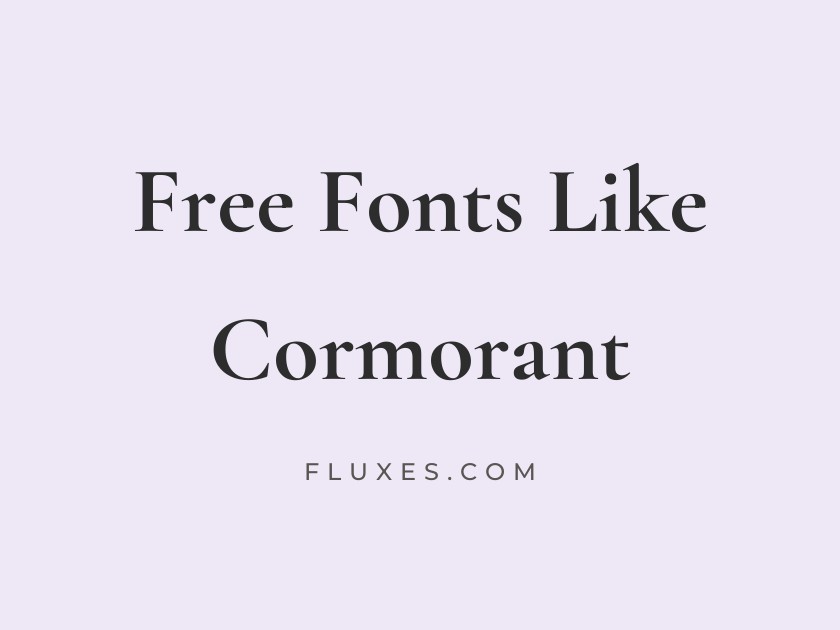
14 Best Free Fonts Similar to Cormorant
Cormorant has become a go-to choice for wedding invitations, poetry collections, perfume packaging, and any design that calls for old-style elegance with a light, romantic touch. Its slender strokes and high contrast borrow from eighteenth-century Garamond types, but not every project needs the exact same letterforms, and not every browser renders its delicate hairlines cleanly at small sizes. Whether you are hunting for a free alternative with more weight options, a companion body text, or simply a fresh take on the same refined mood, Google Fonts has a strong bench of elegant serifs that share Cormorant’s DNA.
An invitation written in timeless, graceful letters
The closest relative on this list is, unsurprisingly, part of the same type family. Cormorant Garamond trades some of the original Cormorant’s extreme display flourish for slightly steadier proportions, making it a touch more comfortable in longer passages while keeping the same airy, romantic feel. It is the natural pick when you want that exact aesthetic but need a version that behaves a little better at text sizes.
Classic literature deserves a classic typeface
Where Cormorant leans decorative, EB Garamond leans literary. It is a faithful digital revival of Claude Garamont’s sixteenth-century punches, with warm, humanist curves and even color that make it genuinely comfortable for body copy in books, essays, and long-form editorial layouts. Pair it with a display cut of Cormorant for headings and you get a historically coherent, thoroughly readable combination.
Bold headlines with old-style sophistication
Playfair Display shares Cormorant’s high-contrast, transitional-serif bones but carries far more visual weight, which makes it a favorite for magazine mastheads, book covers, and luxury branding that needs presence rather than delicacy. The extreme thin-to-thick stroke contrast gives it real drama in large sizes, though that same contrast can look brittle if you push it too small. Designers often reach for it as a sturdier, more confident cousin when Cormorant feels too fragile for the job.
Manuscripts, footnotes, and scholarly typesetting
Cardo was built with classicists and academic publishers in mind, and it shows in its generous diacritic support and calm, book-like rhythm. It has none of Cormorant’s showiness, but that restraint is exactly the appeal for anyone typesetting dense text that needs to stay legible for pages at a time. Think dissertations, critical editions, and long-form web articles rather than wedding suites.
Chapters that invite the reader to linger
This is a text-focused serif descended from the classic Crimson family, refined further with a variable font structure that offers a wide, well-tuned weight range. Its old-style figures and moderate contrast give it a gentle, bookish warmth that reads comfortably at small sizes, something Cormorant itself was never really designed for. It works well as a body-text partner to a more ornamental Cormorant headline.
Digital reading with a paper-like warmth
Spectral was commissioned specifically for on-screen reading, and its sturdier serifs and slightly lower contrast make it noticeably steadier on low-resolution displays than Cormorant. It still carries a literary, slightly old-fashioned character, just with more structural confidence. Editorial sites and blogs looking for a serif that survives scaling and rendering quirks tend to land here.
Fashion editorials with quiet, refined glamour
Italiana is pure display type: tall, thin, and deliberately understated, evoking the lettering on old Italian fashion houses and perfume labels. It shares Cormorant’s romantic fragility but pushes even further into ornamental territory, so it is best reserved for short headlines, logotypes, or monograms rather than anything with real reading demands. Use it sparingly and let it breathe with generous letter spacing.
Elegant titles for boutique hotel branding
There is a formal, almost architectural stillness to Prata that suits luxury branding, hospitality menus, and boutique packaging. Its serifs are crisp rather than delicate, giving it a bit more grounding than Cormorant while retaining a similarly upscale mood. It is a single-weight font, so it works best as a headline face paired with a more flexible text family.
Forum
Inscriptions carved in classical stone
Forum
Forum draws on Roman inscriptional capitals, and its wide, evenly weighted letters feel more monumental than romantic. It is an interesting choice when a project wants the same historical, old-world sensibility as Cormorant but expressed through carved, classical proportions rather than calligraphic delicacy. Best used sparingly for titles, seals, or short decorative lines.
Judson
Vintage stationery with a handset feel
Judson
Judson has a slightly rougher, more handcrafted character than Cormorant, recalling early twentieth-century letterpress and vintage stationery. It comes in regular, italic, and bold, which gives it more practical range than many display-only alternatives on this list. Its warmth suits invitation suites and packaging that want charm over polish.
When in doubt, stay within one type era. Garamond-inspired faces pair naturally with each other, while Didone-style fonts like Bodoni Moda feel more at home alongside other high-contrast display serifs.
Cormorant’s romantic, old-style character is distinctive, but it is far from the only free serif capable of that mood. With these alternatives from Google Fonts, there is enough range to build anything from a soft, handwritten wedding suite to a sharp, editorial masthead, all without leaving free font territory.